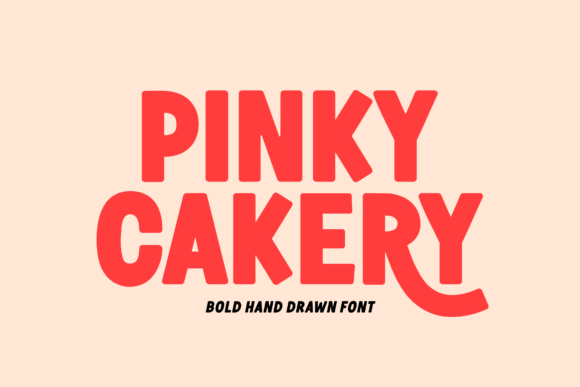
Prepare to be swept away by the magic of Pinky Cakery Font, a display font that will ignite your creativity and leave you spellbound. Designed with meticulous care by the talented Medina Type, Pinky Cakery is not just another font; it's an enchanting journey into the world of whimsical typography.
Picture this: a world where letters dance and twirl, where words come alive with charm and delight. Pinky Cakery Font is your passport to this enchanting realm, where your designs will blossom into masterpieces. Its hand-drawn aesthetic, reminiscent of a skilled artisan's touch, adds a touch of warmth and individuality to your projects.
Whether you're a seasoned designer or just starting your creative journey, Pinky Cakery Font is your perfect companion. Its easy-to-read, accessible nature makes it ideal for a wide range of applications. From eye-catching logos and branding materials to heartwarming invitations and personal projects, Pinky Cakery Font will effortlessly elevate your designs.
Step into the world of Pinky Cakery Font and experience the joy of creating designs that captivate and inspire. Let your imagination run wild as you explore the endless possibilities that this remarkable font offers. It's time to unleash your creativity and let your designs shine brighter than ever before.